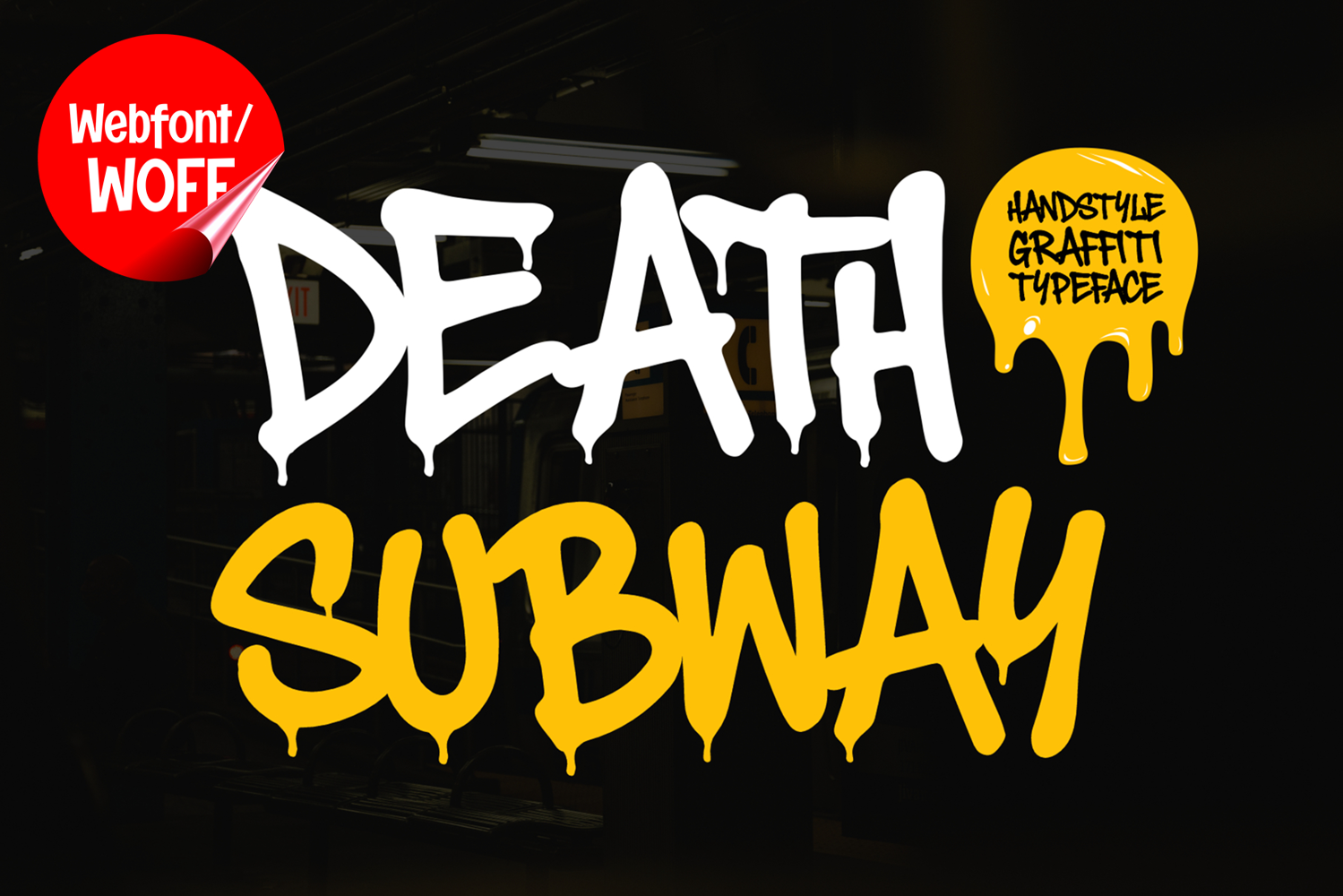
Death Subway | Handwritten Dripping Graffiti Webfont
Death Subway is a handwritten dripping graffiti webfont designed to bring raw underground street energy and authentic graffiti aesthetics into modern website design. Inspired by subway graffiti culture, spray-paint drips, and freestyle handwritten tags, this font features expressive strokes and fluid dripping details that create a rebellious and eye-catching visual identity. It is an excellent choice for projects that aim to deliver bold urban visuals with strong street-style character.
Death Subway includes a complete set of uppercase characters designed with handwritten dripping graffiti aesthetics. The letterforms feature bold handwritten movement, energetic curves, and dynamic drip effects that create an authentic street-art appearance inspired by subway wall murals and marker tagging culture. These characteristics make it ideal for headlines, banners, hero sections, promotional graphics, and featured content where strong urban visuals are needed.
In addition to letters, the font includes numbers and punctuation, allowing flexible usage across various parts of a website. It works well for streetwear branding, gaming websites, music platforms, hip hop projects, esports graphics, and creative portfolios. Each character maintains a consistent dripping graffiti style, ensuring a cohesive and unified visual identity throughout the design.
With multilingual support, Death Subway includes a wide range of accented characters, making it suitable for international websites and global audiences. This ensures content remains clear and visually consistent across different languages while preserving the expressive and underground graffiti aesthetic.
The handwritten dripping graffiti style of Death Subway makes it especially suitable for urban-themed websites, entertainment campaigns, youth-oriented branding, and creative digital projects. Its flowing handwritten structure and dripping effects create a powerful street-art atmosphere that helps websites stand out in visually competitive environments. The graffiti-inspired forms add movement, intensity, and authentic underground character.
Despite its decorative and highly expressive appearance, Death Subway is designed with readability in mind. The spacing and proportions are carefully balanced to ensure clarity, particularly in display sizes. This allows designers to use the font effectively for impactful headings and short content without sacrificing usability.
Death Subway is a webfont that combines handwritten graffiti aesthetics with dripping street-art styling and modern digital performance. Its bold forms, expressive drip details, and urban character create a distinctive typographic presence that enhances website design. For projects that require a strong, edgy, and visually engaging graffiti font, Death Subway offers a versatile and powerful solution.